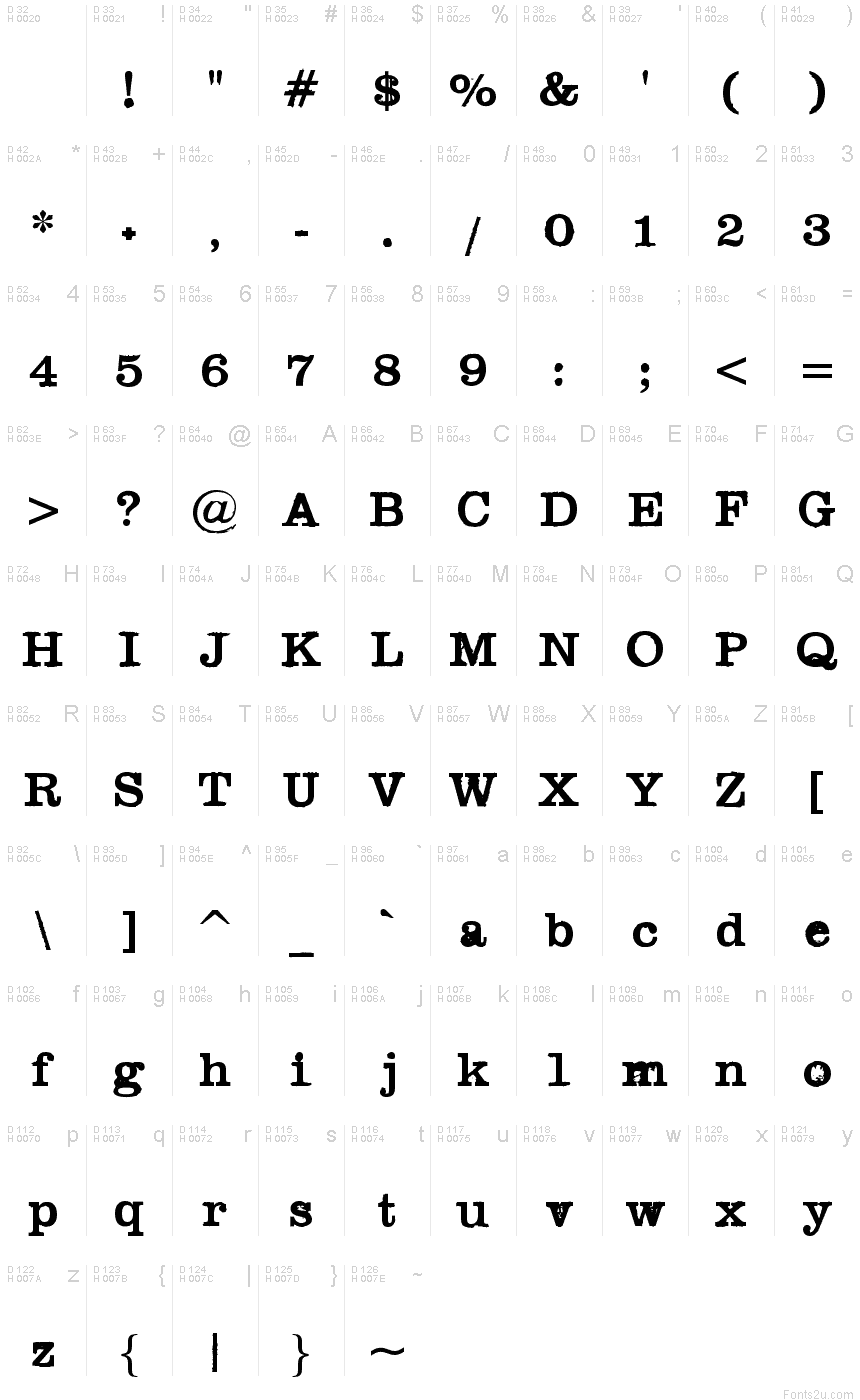
Black Widow
Black Widow font by Font Diner is a free distorted serif font that looks like it’s been dragged through ink and left to dry in the dark. Chunky letterforms are chewed at the edges, with irregular blotches and splatters that feel worn, grimy, and a little dangerous. There’s a vintage newspaper vibe hiding under the decay, which gives this typeface a storybook horror charm rather than pure gore.
Using Black Widow, you can push titles for horror posters, Halloween party invites, haunted house branding, escape room graphics, zine covers, or retro thriller book jackets. This free font holds up best at larger sizes, where the gritty texture really shows. Pair it with a clean, modern sans-serif for body text to keep layouts readable while letting Black Widow handle the screams and shivers in your headlines.